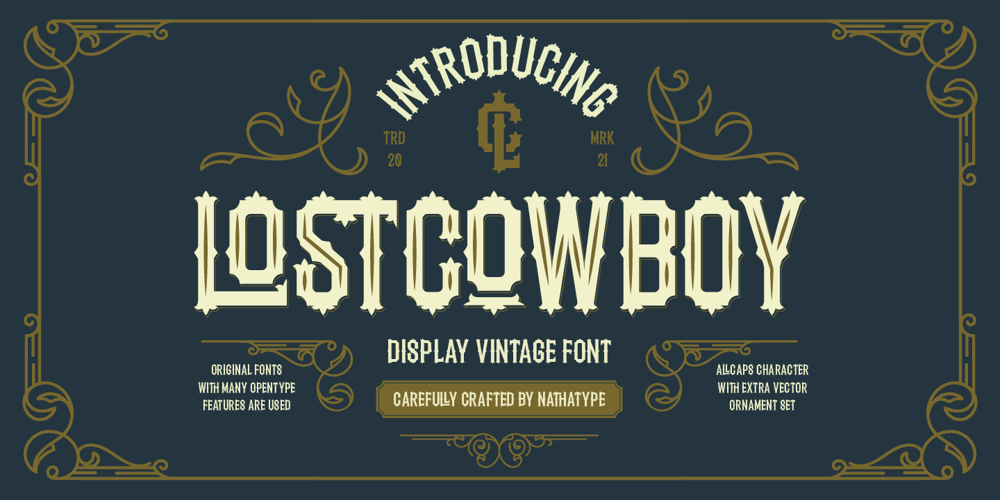
Lostcowboy
Lostcowboy font
Lostcowboy Font Family was designed by Donis Miftahudin and published by Nathatype. Lostcowboy contains 3 styles and family package options. Have you been looking for a vintage font?Get ready to transcend to a world of magic, laughter, and butterflies. Your projects will spark delight and engage everyone who sees it!Lostcowboy-A Vintsge FontLostcowboy is a font made all in uppercase that is inspired by designs and illustrations from urban styles. An excellent choice to add the right amount of street and retro vibes. Perfect for social media branding projects, printed quotes, packaging, or even as a stylish text overlay to any background image. Lostcowboy includes Multilingual Support to make your branding reach a global audience. Features: Ligatures Alternates Stylistic Sets Bonus Ornament PUA Encoded Numerals and Punctuation Thank you for downloading premium fonts from Nathatype